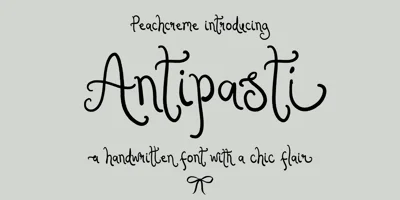
Antipasti Font
Antipasti Font is ideal for Italian restaurant branding, gourmet delicatessen marketing, authentic trattoria signage, Mediterranean cuisine promotions, artisanal food packaging, fine dining establishments, culinary tourism campaigns, and appetizing gastronomic communications. This flavorful typeface brings Italian culinary heritage, Mediterranean warmth, and gastronomic sophistication to any project celebrating the art of fine food presentation and the irresistible appeal of Italian culinary tradition and appetizer culture.
What makes Antipasti Font exciting is its remarkable ability to capture the essence of Italian culinary artistry through letterforms that seem to dance with the passion and elegance of traditional Italian food presentation and Mediterranean hospitality. The font features gracefully crafted character shapes with culinary proportions, appetizing spacing that creates visual flavor, and delicious details that evoke the artistry of Italian chefs and the sophisticated presentation of antipasti platters. Its gastronomic character embodies the joy of shared meals and culinary excellence, making it perfect for brands that want to communicate authentic Italian flavor, culinary sophistication, and the irresistible appeal of Mediterranean dining culture.
The Antipasti Font family typically includes regular weight with tastefully designed uppercase and lowercase letters, flavorful numerals, and comprehensive punctuation marks that maintain the font's culinary authenticity and Italian appeal. The design emphasizes gastronomic elegance while providing practical typography options for contemporary restaurant and food service communication applications that require both appetizing character and functional readability.
Whether you're creating Italian restaurant identities or developing gourmet food marketing materials, Antipasti Font provides unmatched culinary authenticity and Italian appeal. This typeface excels in applications where its flavorful character can evoke the passion of Italian cuisine and Mediterranean dining culture. Its gastronomic aesthetic makes it particularly effective for restaurants, delis, and food brands that want to associate with authentic Italian tradition and culinary excellence. The font's appetizing presence helps establish culinary connections while ensuring memorable recognition through typography that celebrates the timeless appeal of Antipasti Font Italian culinary heritage and gastronomic artistry.